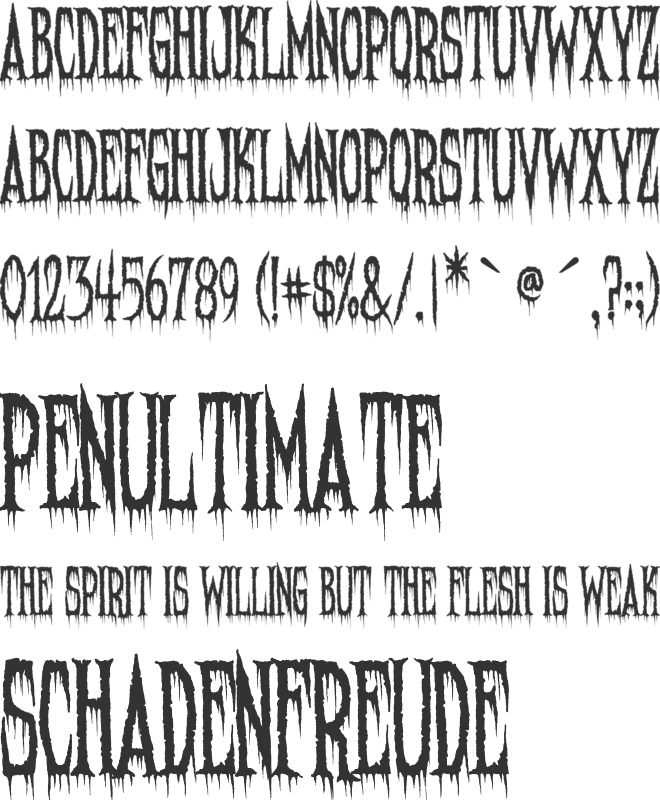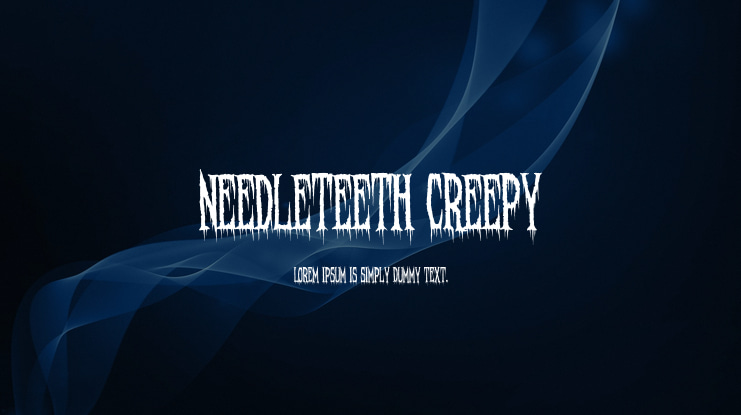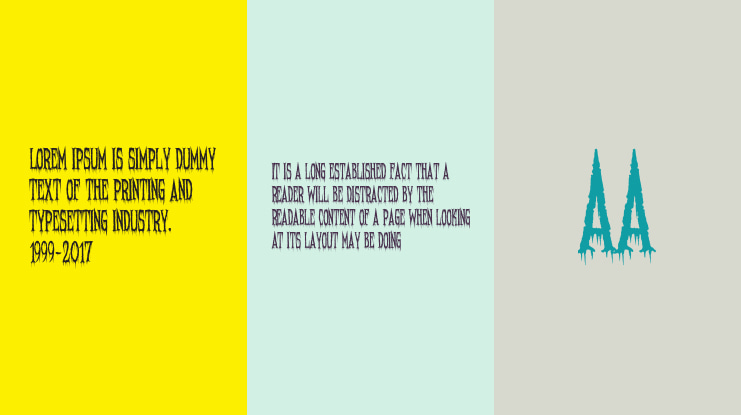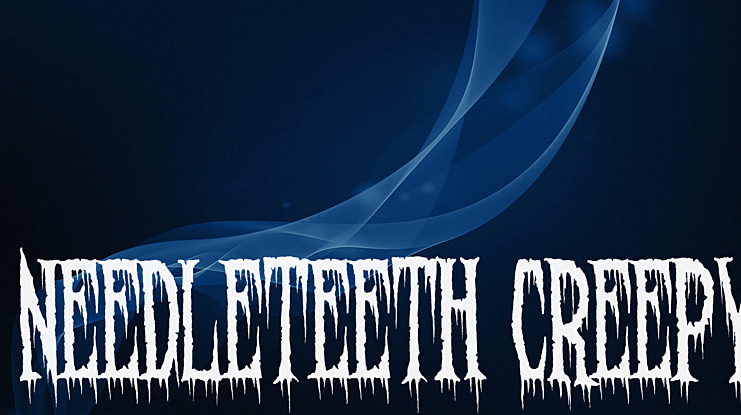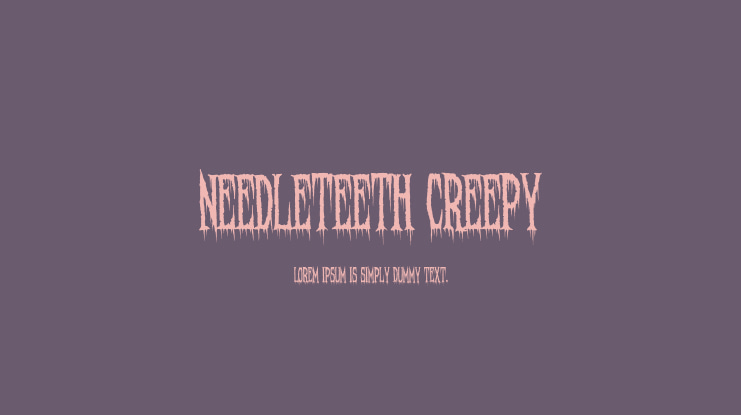
Needleteeth Creepy Font Family
Chad Savage
Created 2011, hand-lettered on Halloween night.
This font is intended for specialty and graphic uses. It will look just awful if used in a paragraph format. The upper and lower cases of Needleteeth Psycho and Needleteeth Spooky alternate sizes - mix and match the cases to GeT tHaT sTaGgErEd LoOk.